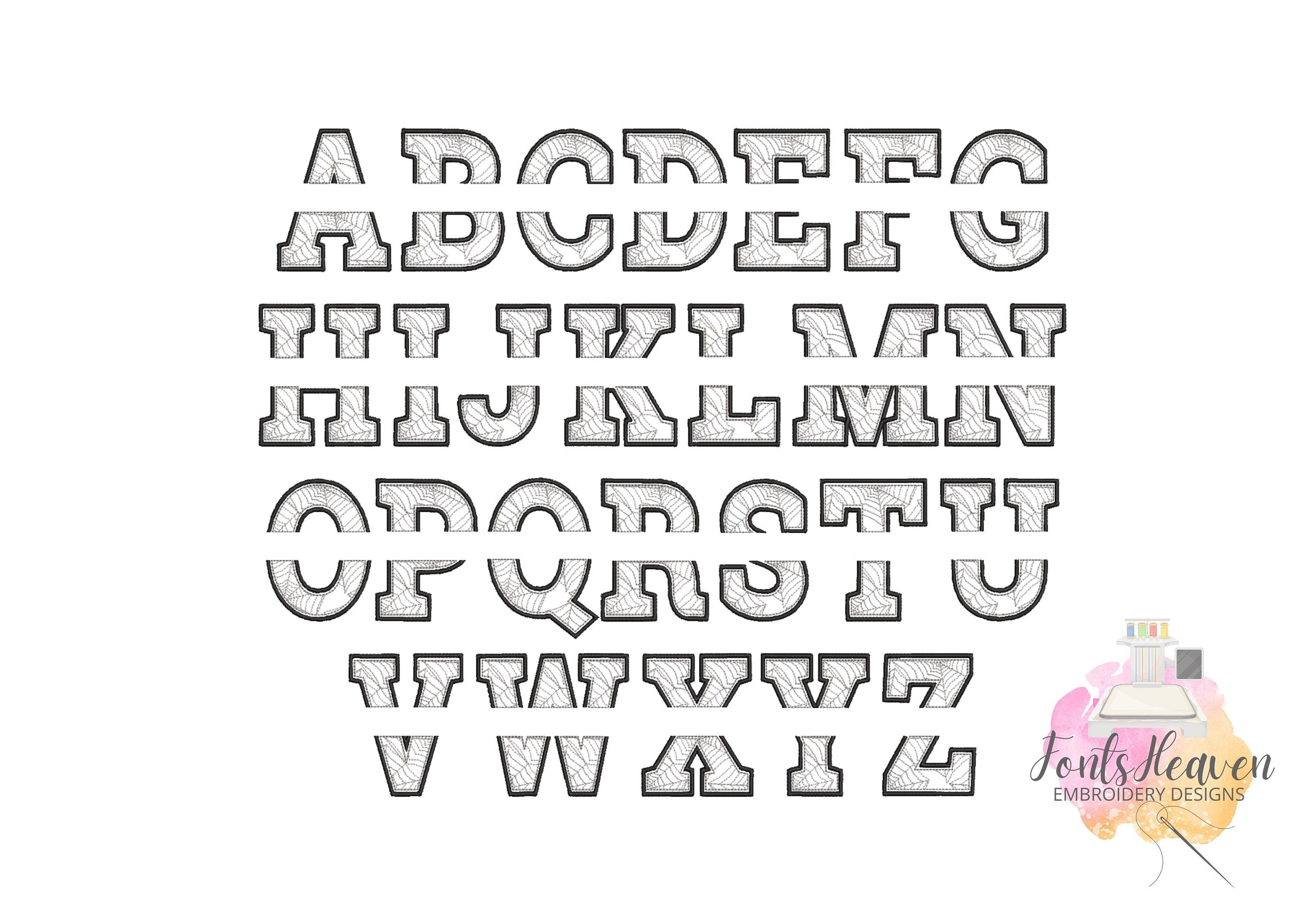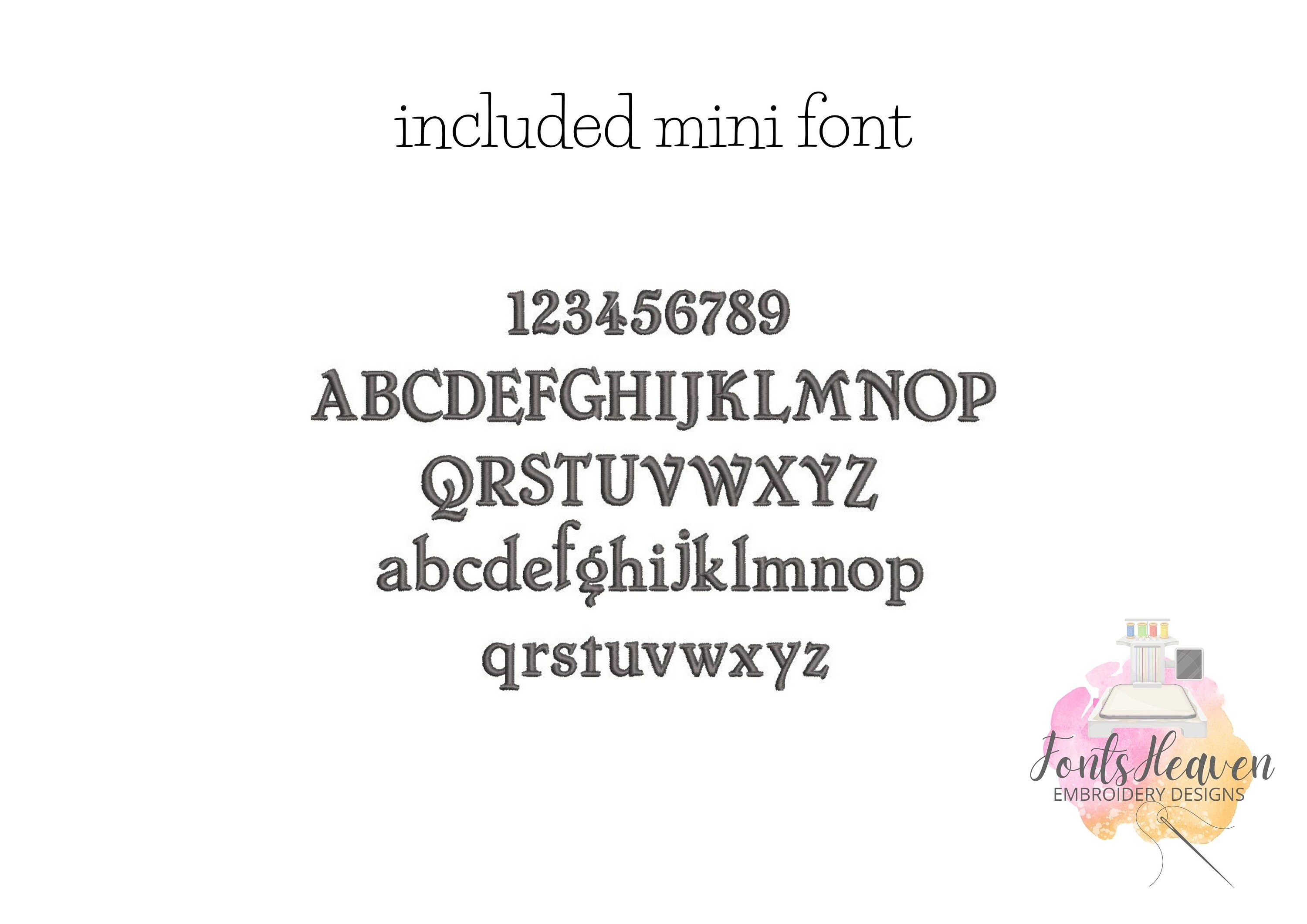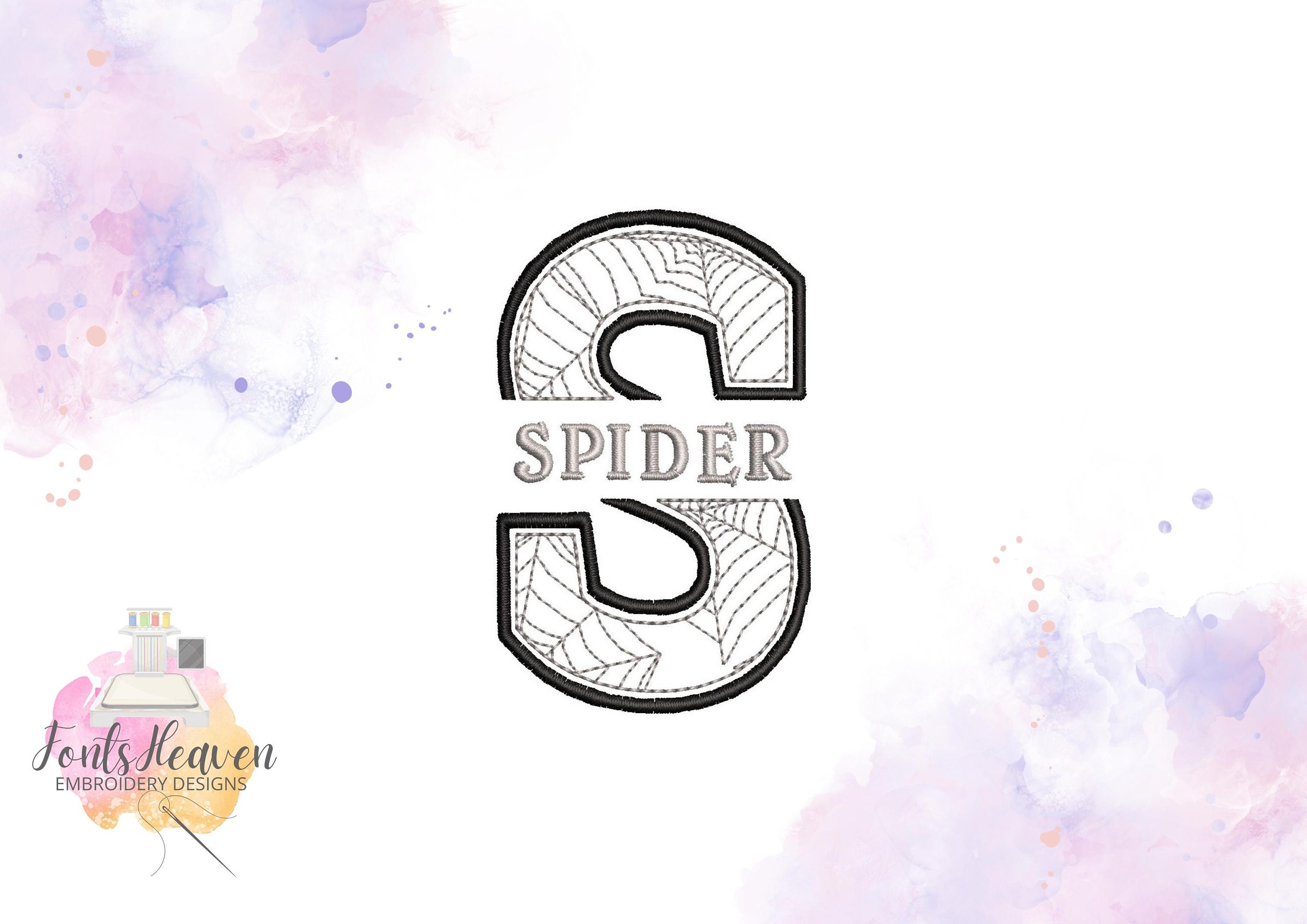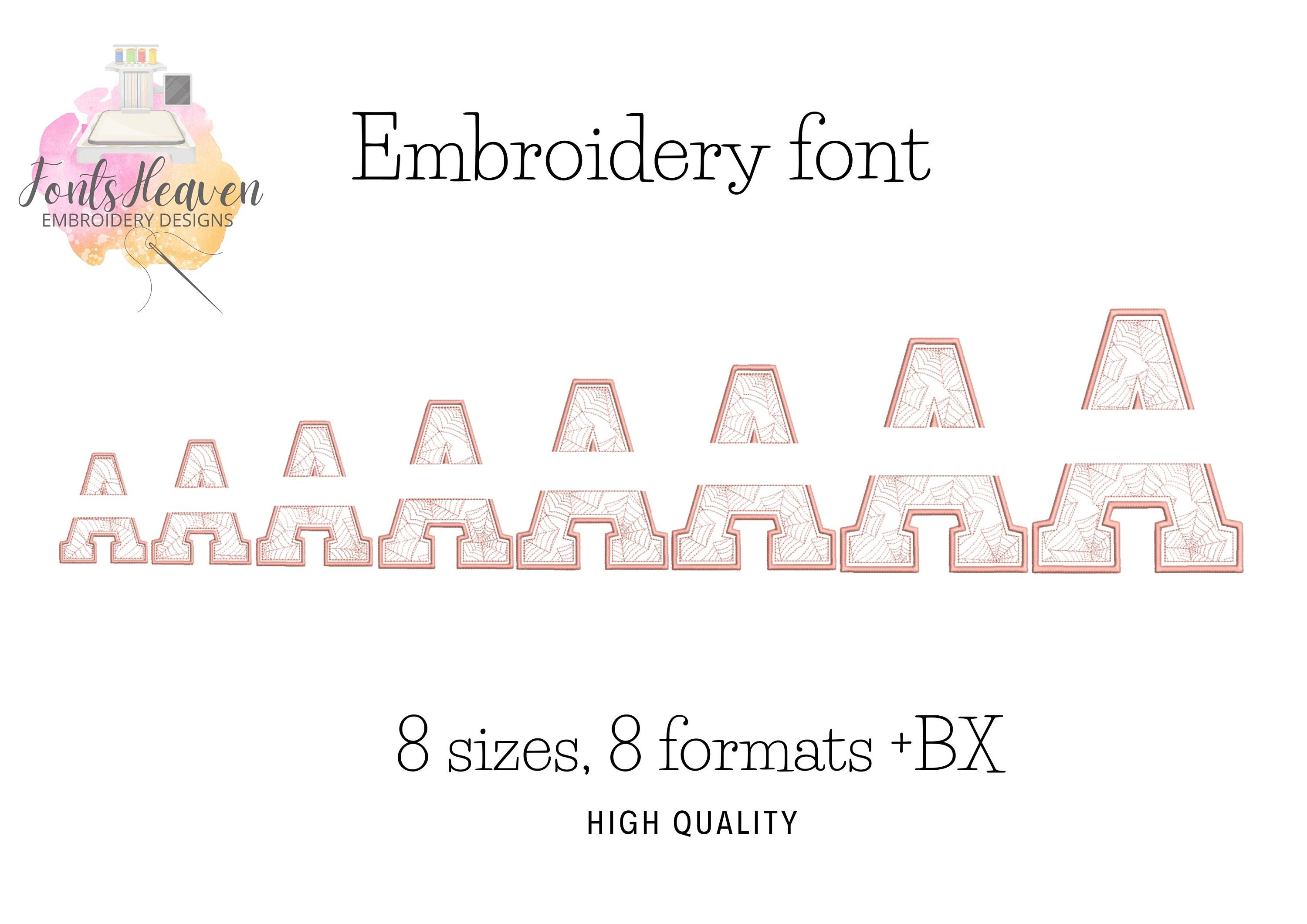
Halloween Spiderweb Split FONT and mini font alphabet machine embroidery designs in many sizes, spider web spooky monogram kids name, BX
Spiderweb Font in sizes:
3 "
3.3 "
3.9 "
4.5 "
5.1 "
5.5 "
6.3 "
7 "
Mini Font sizes will fit into the split in the initial letters:
0.6 inch
0.8 inch
1.3 inches
1.6 inches